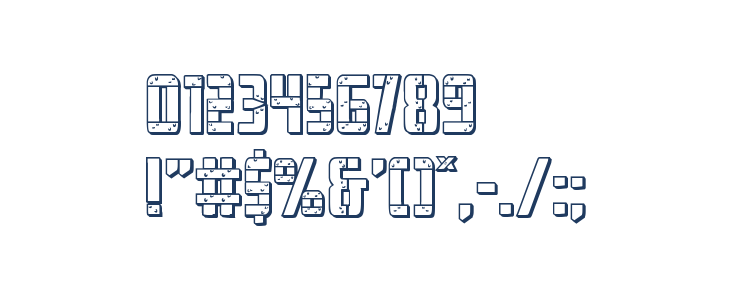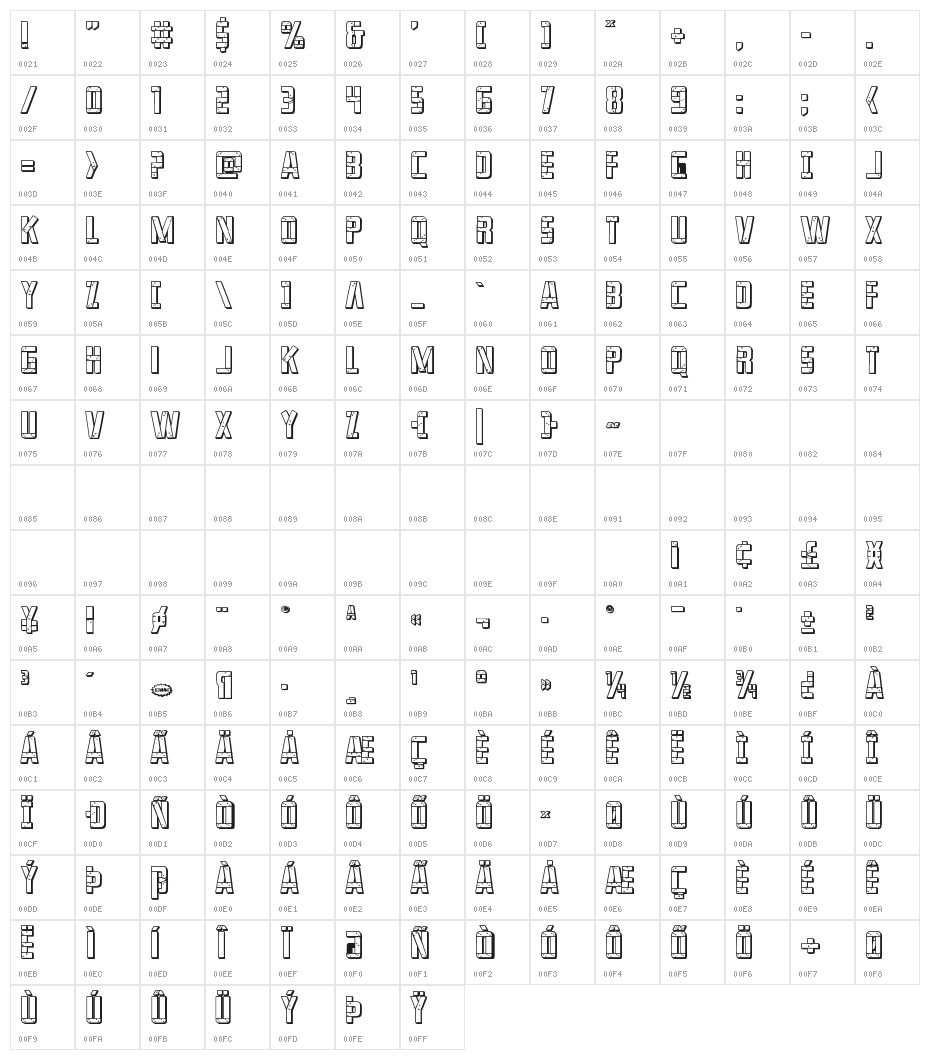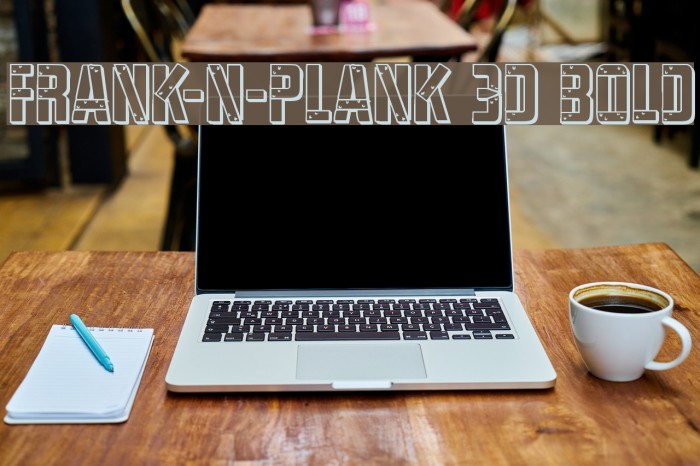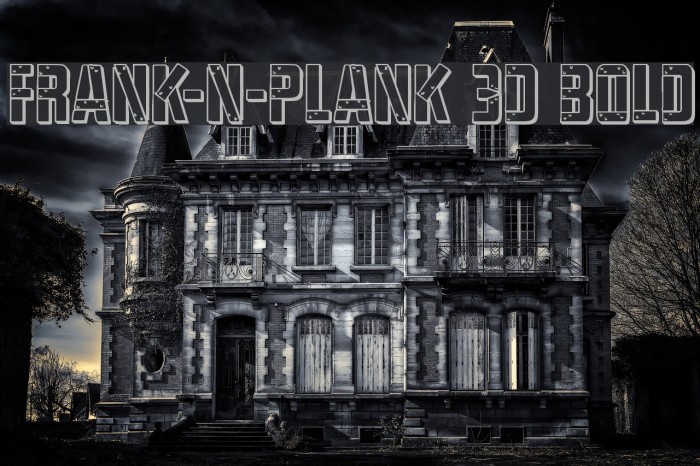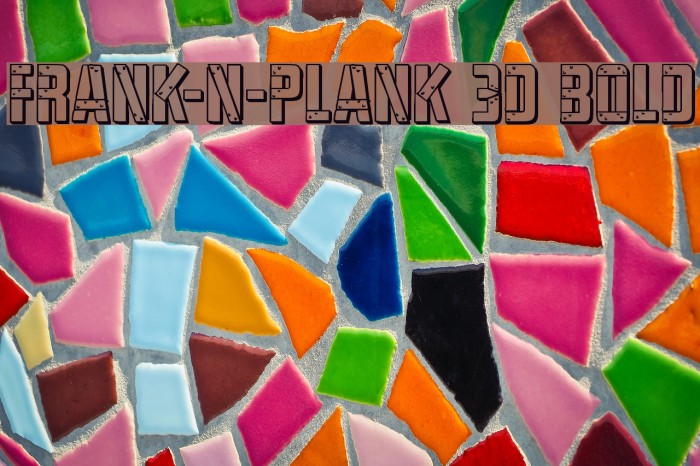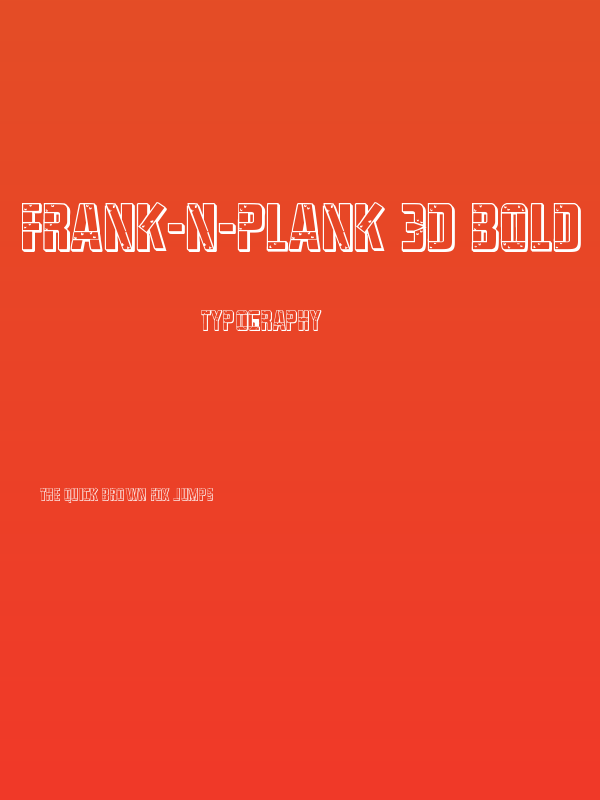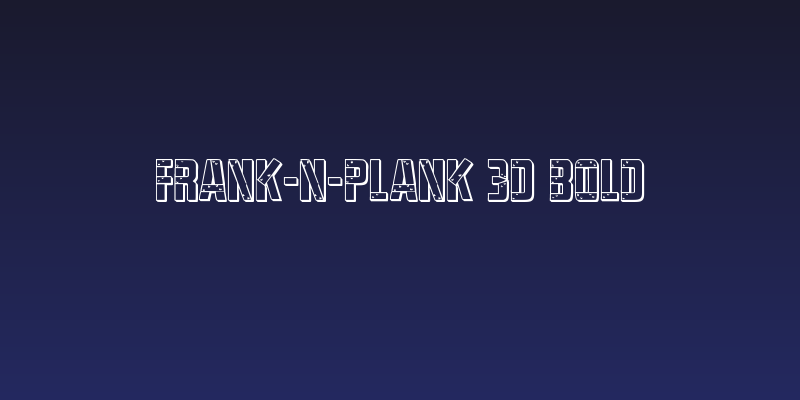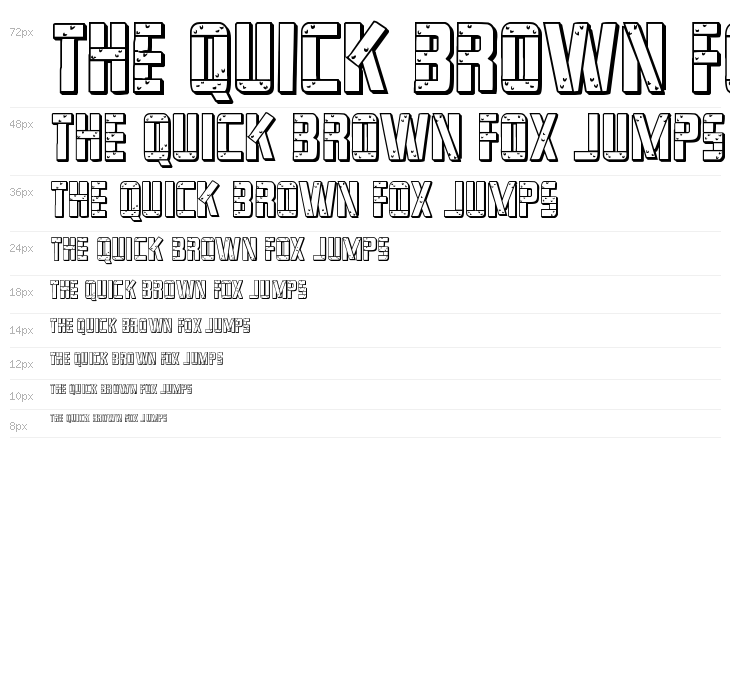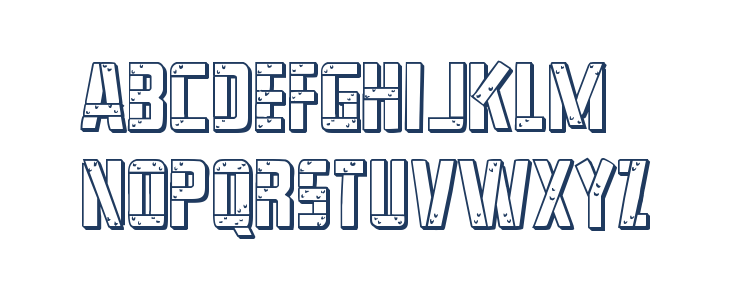
Frank-n-Plank 3D Bold Font
Frank-n-Plank 3D Bold Description
This font features a bold, three-dimensional style with a playful and decorative appearance. Each character is designed with a blocky, geometric structure, enhanced by a shadow effect that gives it a 3D look. The letters are adorned with small, irregular dots and lines, adding a textured, almost industrial feel. The uppercase and lowercase letters maintain a consistent style, with the numbers and special characters following suit. The overall design is eye-catching and suitable for projects that require a strong visual impact.
| Proposed Projects | Ideal for posters, video game graphics, children's book covers, and any project needing a bold, playful aesthetic. |